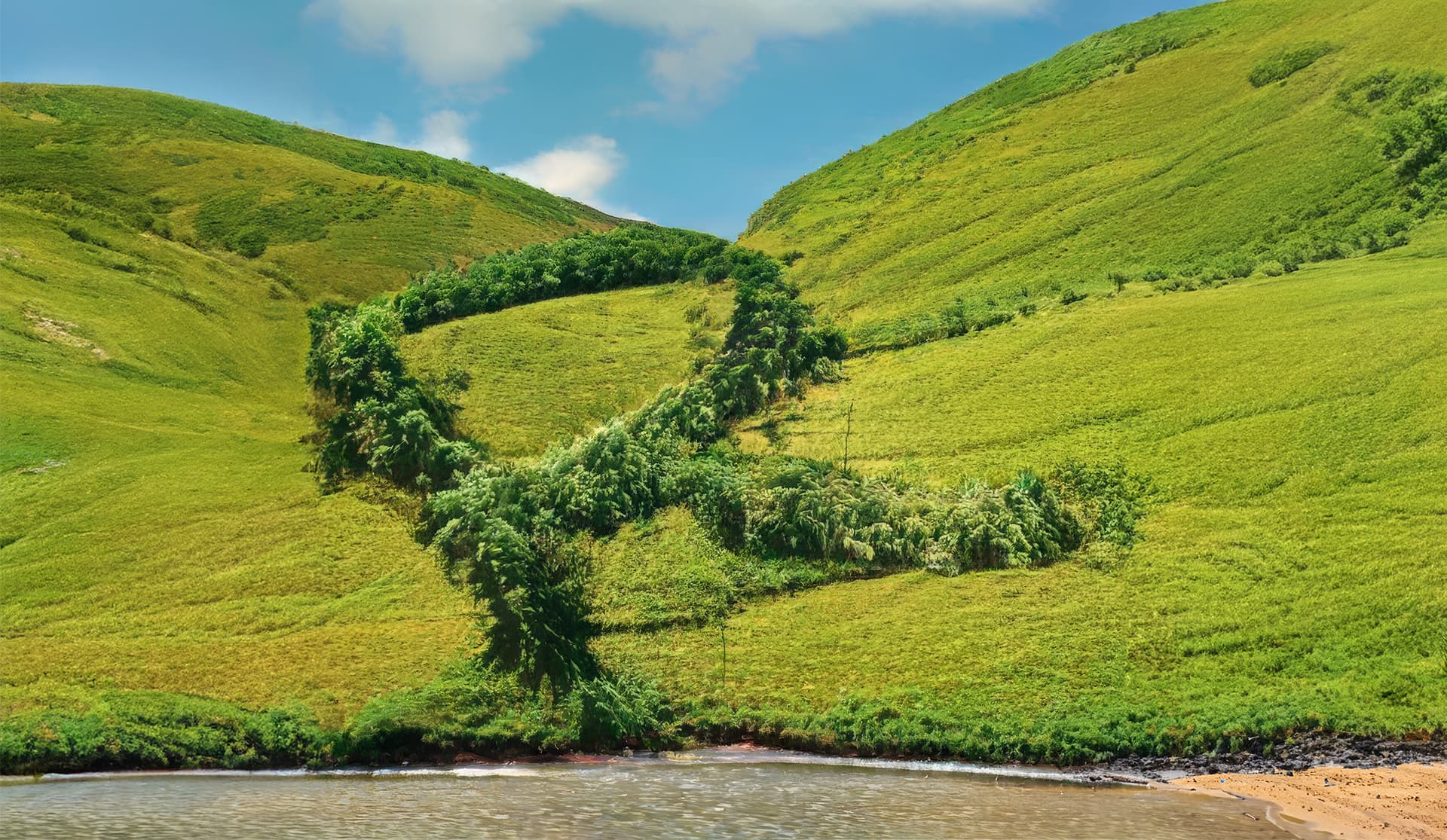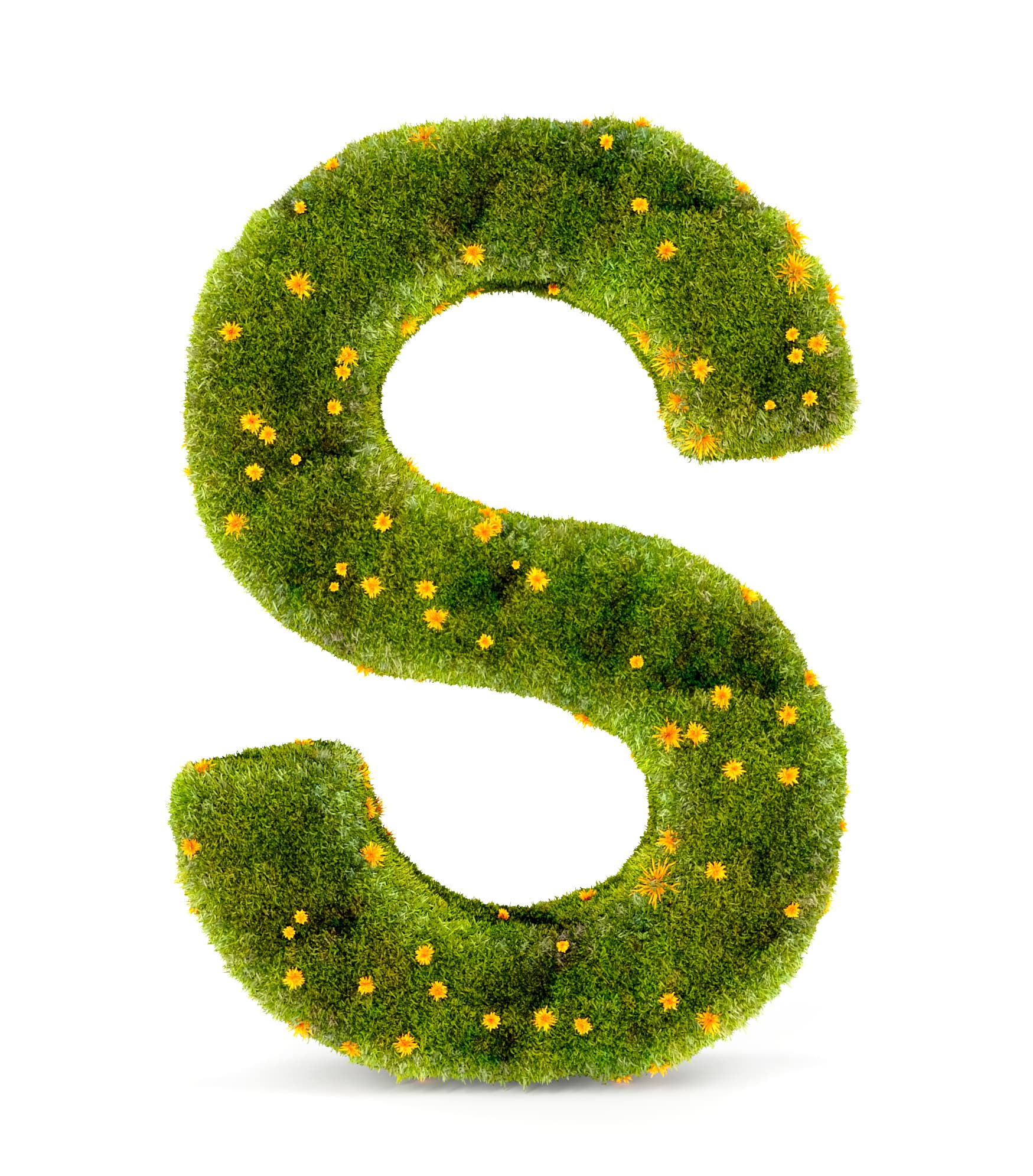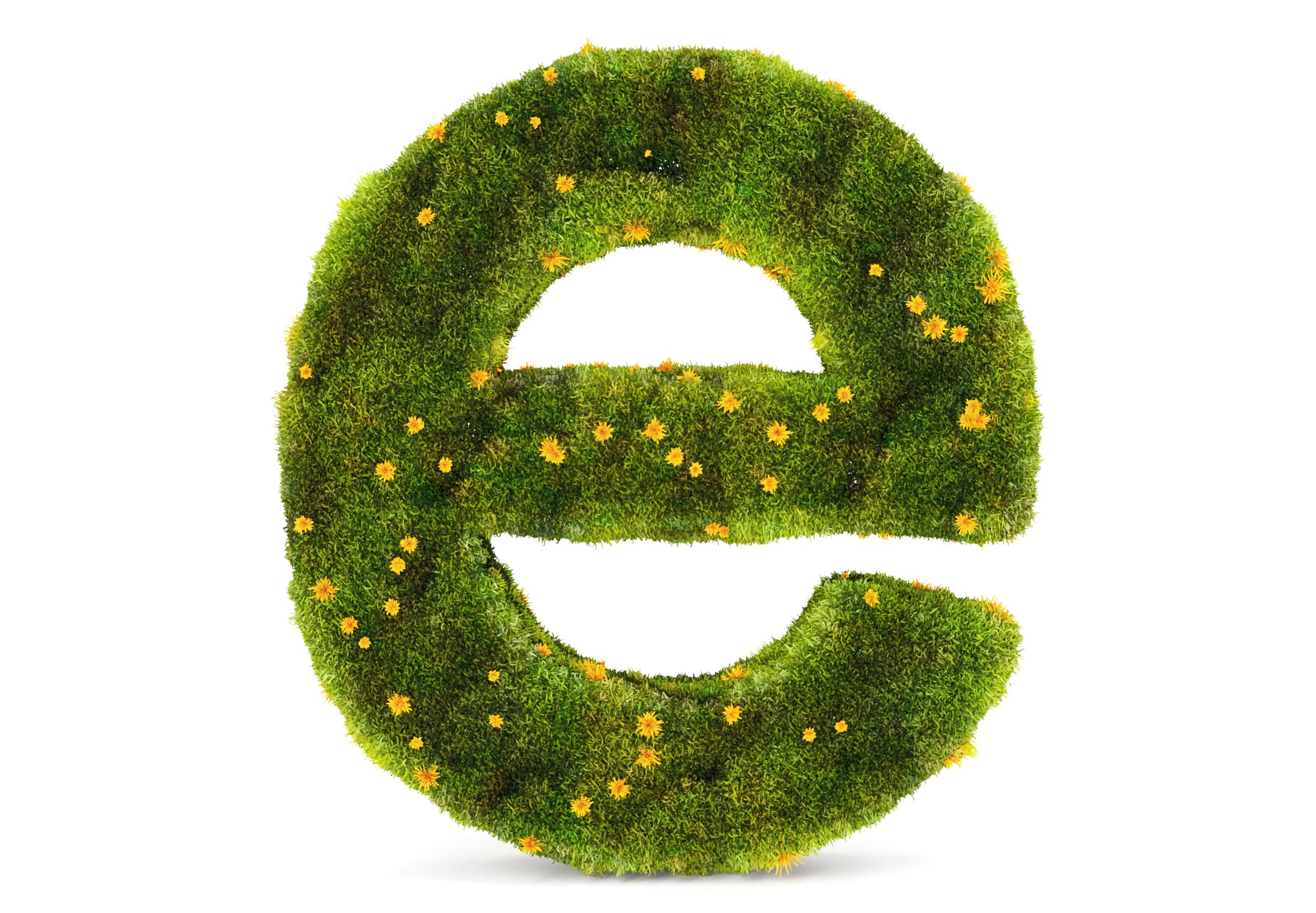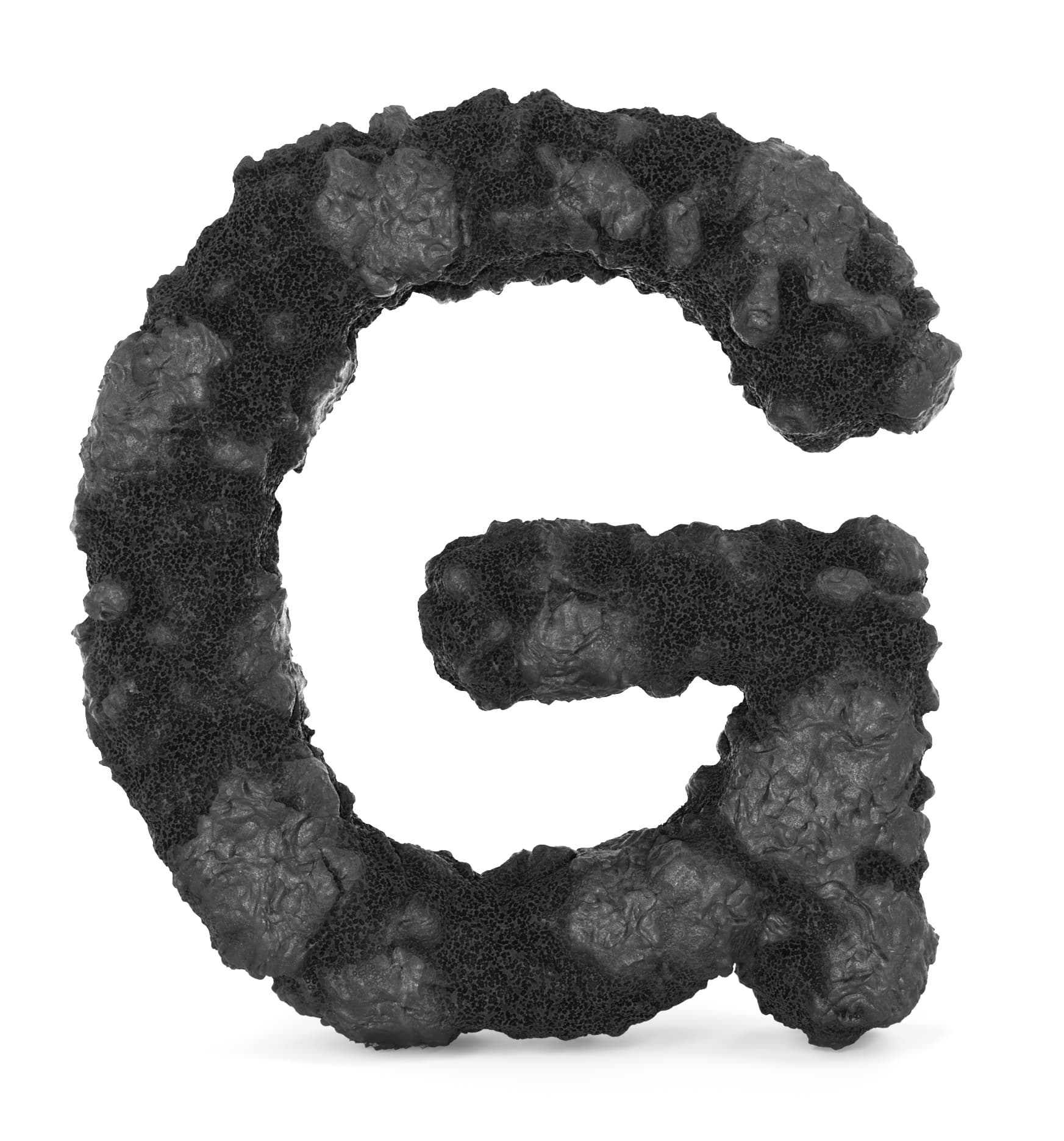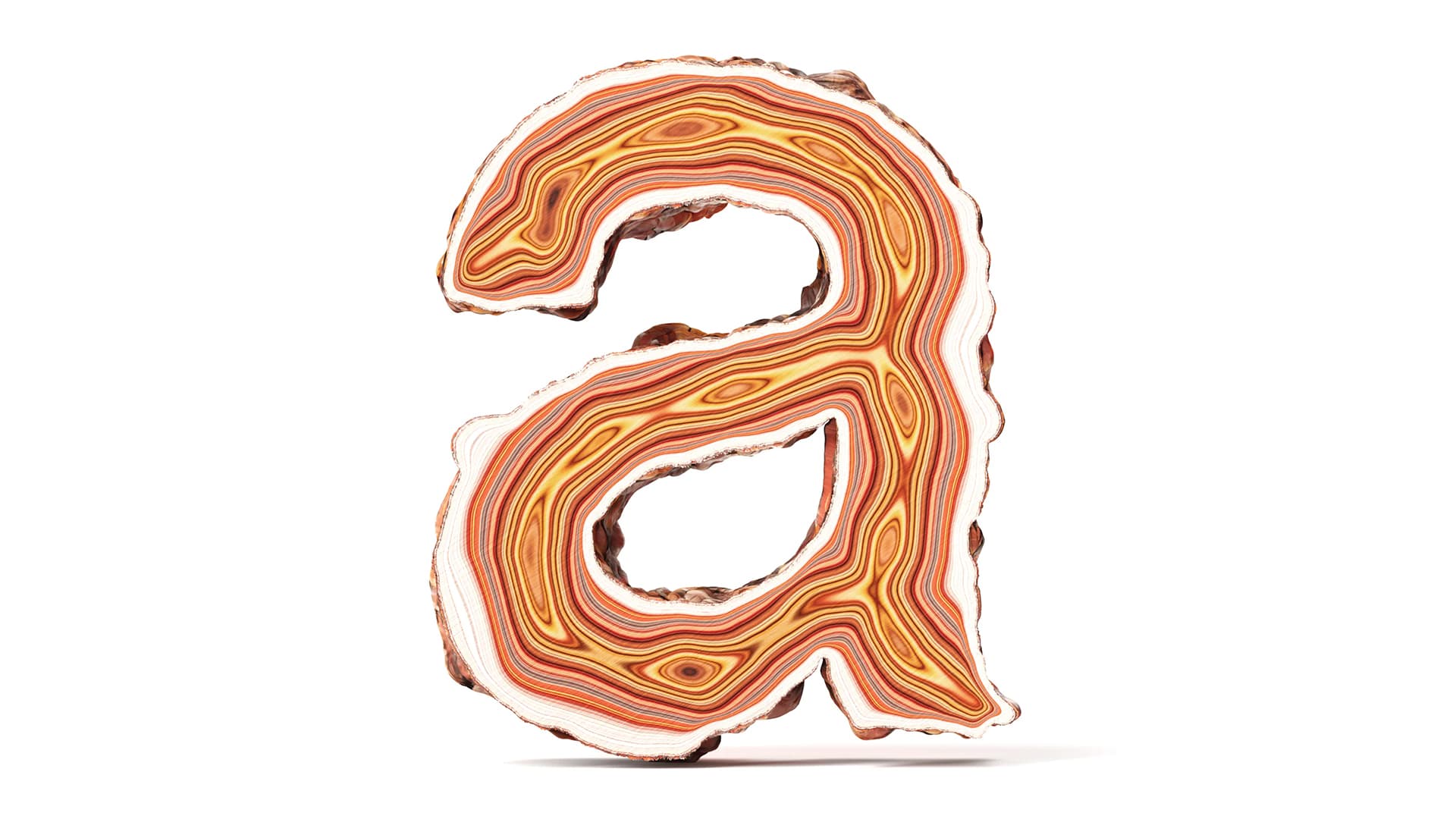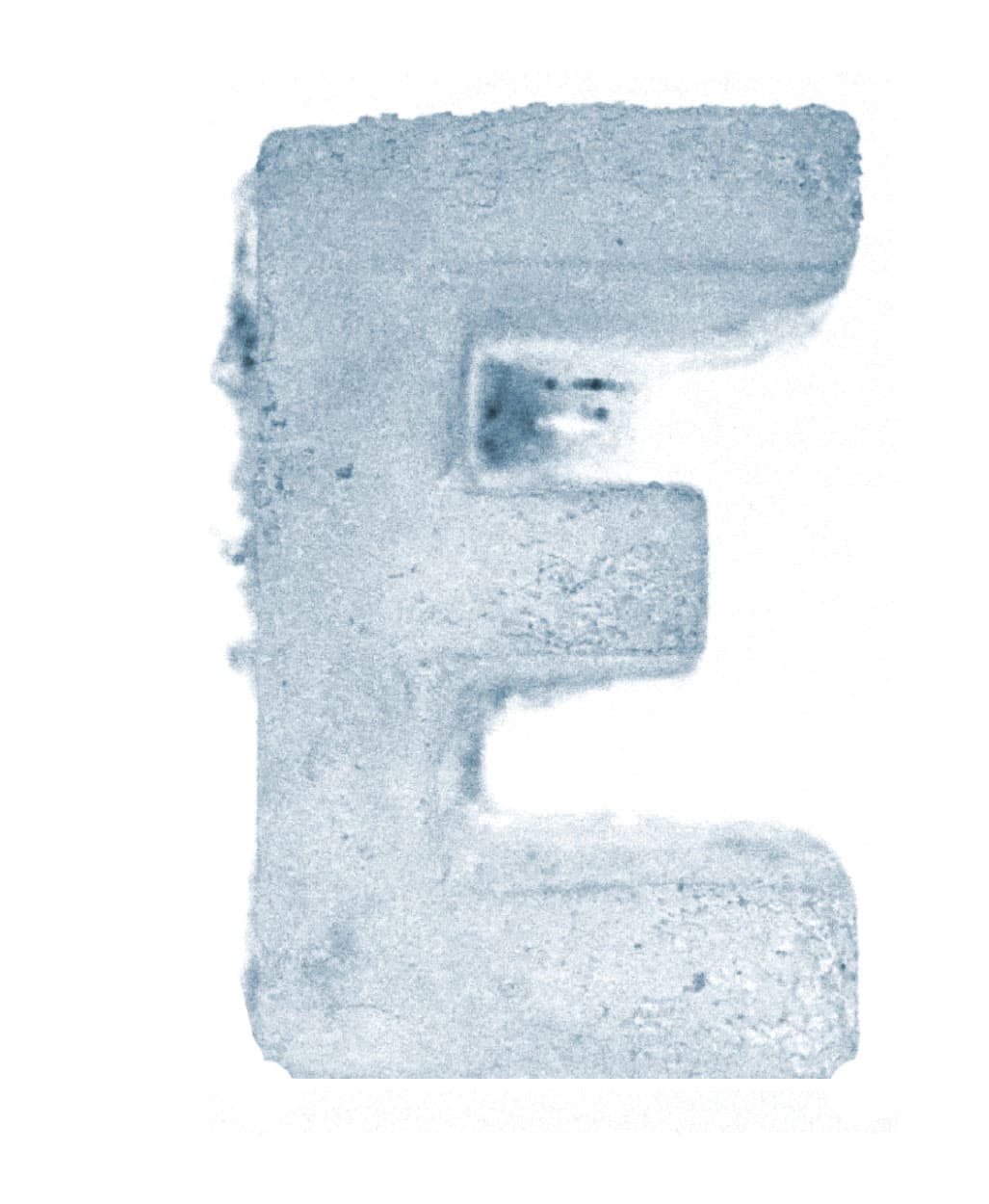
Sharp Earth
Sharp Earth is a new multi-script sans serif typeface spearheaded by Lucas Sharp and drawn in collaboration with a team of local experts from around the globe. The Sharp Earth family covers nearly every latinized language script on Earth in addition to Greek, Cyrillic, Arabic, Thai, Devanagari, and Japanese. As a contemporary expression of the international style, Sharp Earth is unified by a forward-looking aesthetic paradigm that has been drawn by and for a truly global design culture. Sharp Earth doesn’t neatly exist in any single sub-genre of the Sans Serif pantheon. Rather, it brings together core aspects of disparate sub-genres of sans serif type that share an emphasis on warmth, pragmatism, and utility.
Type Director: Lucas Sharp | Designers: My-Lan Thuong & Cris Hernández | Engineer: Calvin Kwok | Kerning: Igino Marini & Lucas Sharp
Sharp Earth Case Study